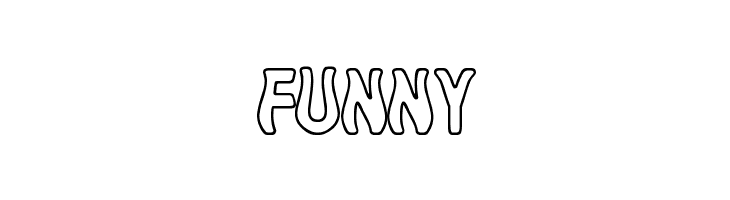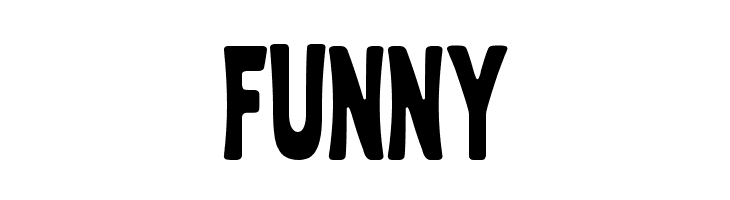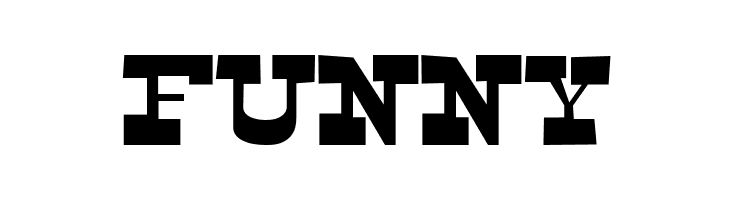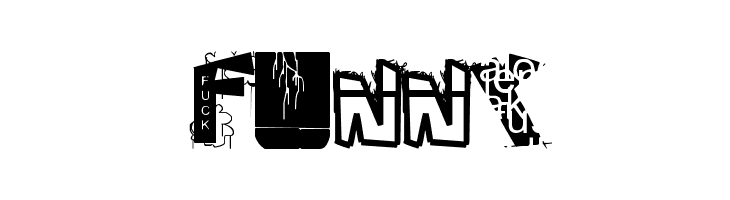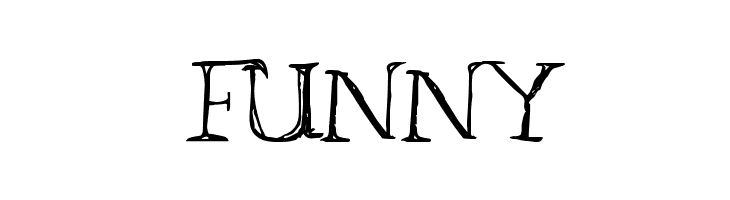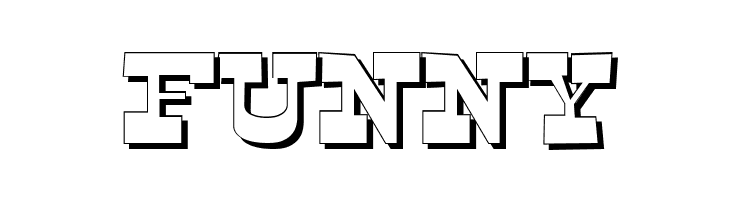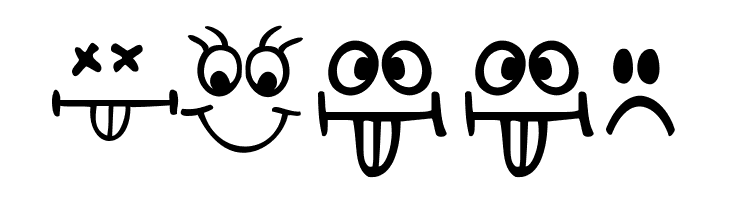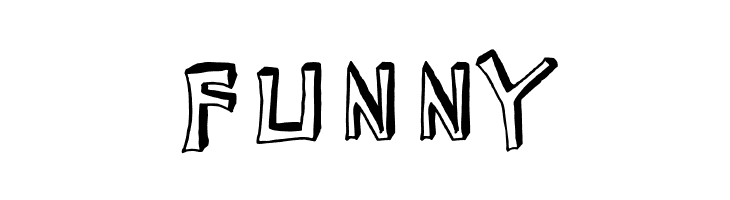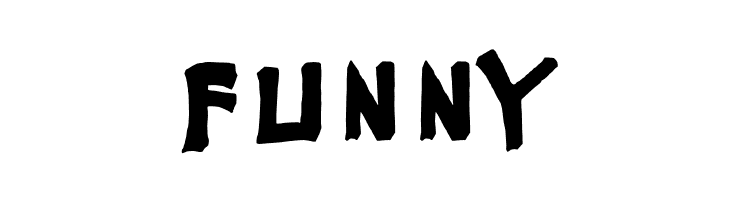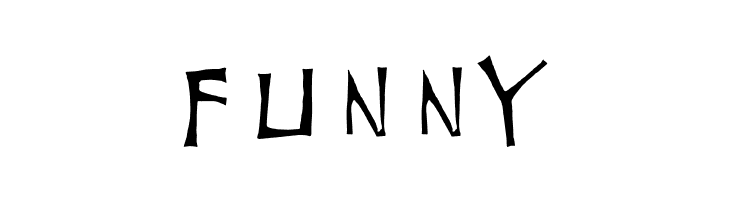
A bold, angular font with a modern, geometric style.
A bold, italicized font with a modern, angular design.
A playful, bold 3D font with a cartoonish style and thick outlines.
A bold, distressed font with a rugged, weathered appearance.
A casual, handwritten font with smooth, flowing strokes and medium thickness.
A playful, bold outline font with rounded edges and a cartoonish style.
A bold, modern sans-serif font with uniform thickness and geometric shapes.
A bold, modern font with strong, thick strokes and tight spacing.
A bold, italic font with tight spacing and high contrast, ideal for dynamic designs.
A bold, decorative font with a dotted pattern, perfect for creative projects.
A playful, handwritten marker-style font with bold, rounded characters.
A hand-drawn, sketch-like font with bold, uneven strokes and a playful aesthetic.
A bold, rugged font with a hand-drawn, graffiti-like style.
A bold, edgy font with sharp angles and a hand-drawn appearance.
A playful and expressive font featuring emoticons and words that convey various emotions.
A tall, narrow font with a modern and artistic style.
An elegant, artistic script font with flowing, elongated lines and a calligraphic style.
An elegant, flowing script font with dramatic curves and medium contrast.
Bold, three-dimensional font with strong shadow effects, ideal for impactful headlines.
A bold slab serif font with strong, block-like serifs and a robust presence.
A bold, artistic font with sweeping curves and exaggerated serifs.
A dynamic handwritten font with fluid, cursive letterforms and artistic flair.
A bold, playful font with a shadowed, three-dimensional effect.
A bold, hand-drawn script font with a playful and energetic style.
A bold, playful font with thick, rounded strokes and a whimsical, hand-drawn feel.
A decorative font with intricate, vine-like embellishments and a mysterious, enchanting style.
A bold, rounded font with a playful, retro aesthetic.